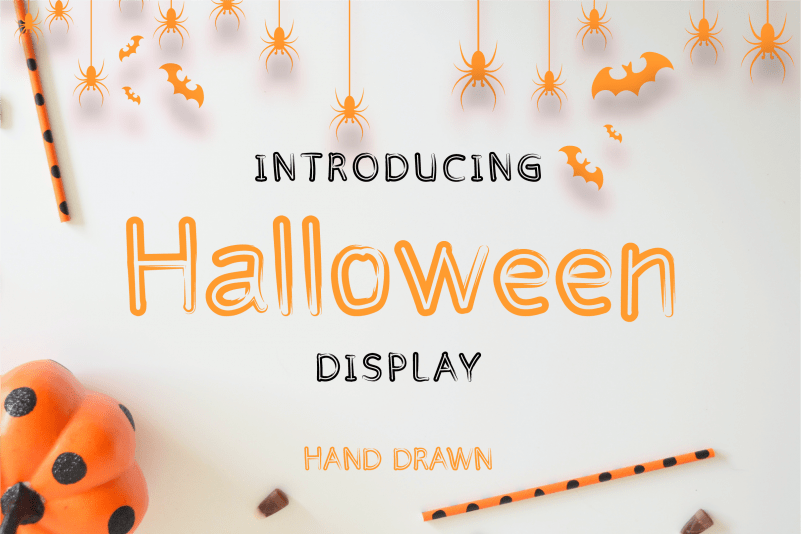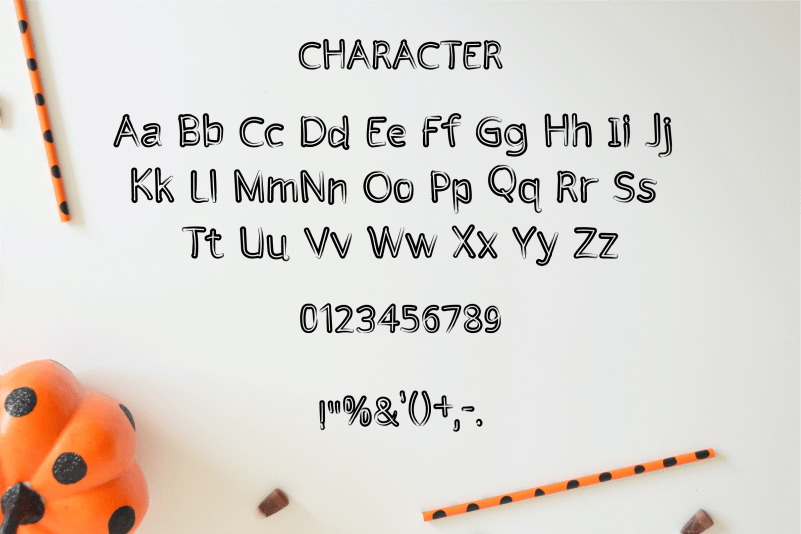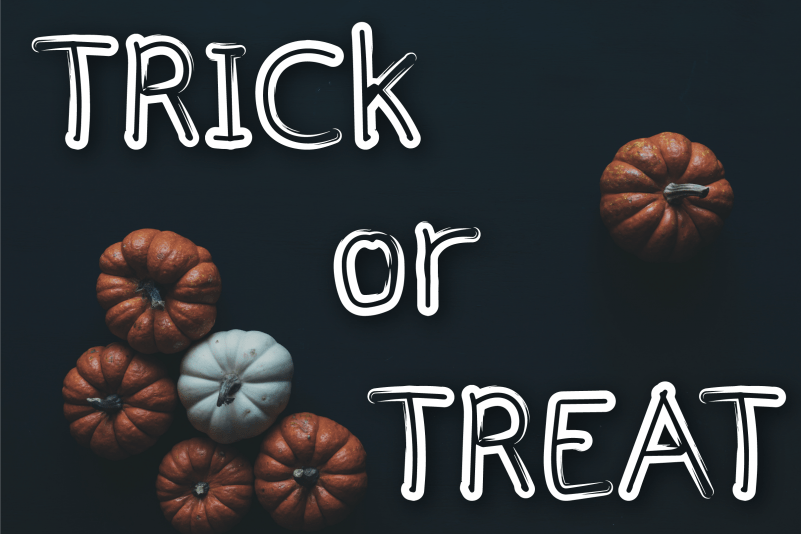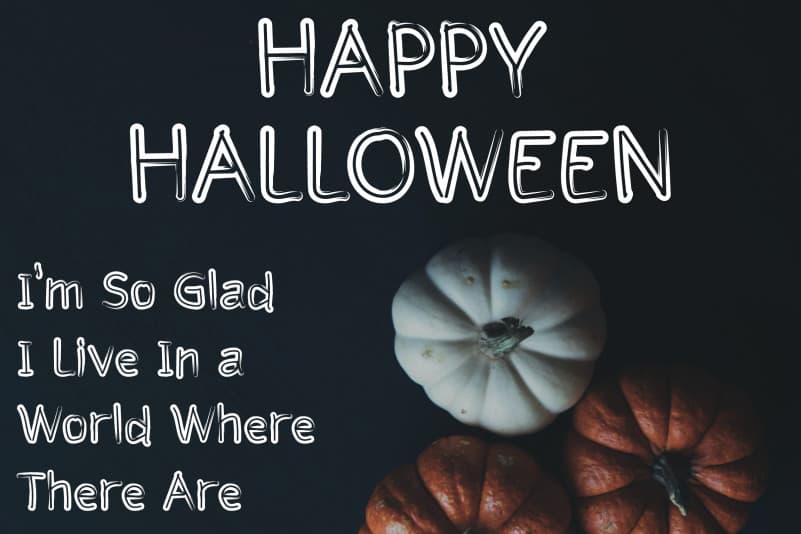
Halloween Display Font
Halloween Display Font is a cute display font with a halloween theme. Add this beautiful display font to each of your creative ideas and notice how it makes them stand out!